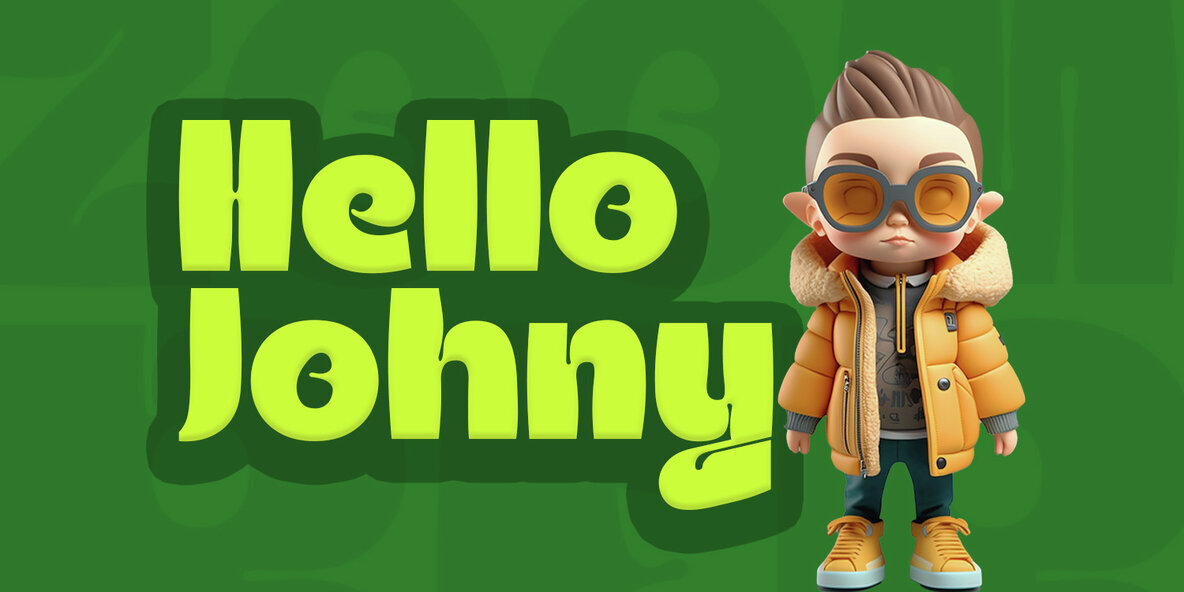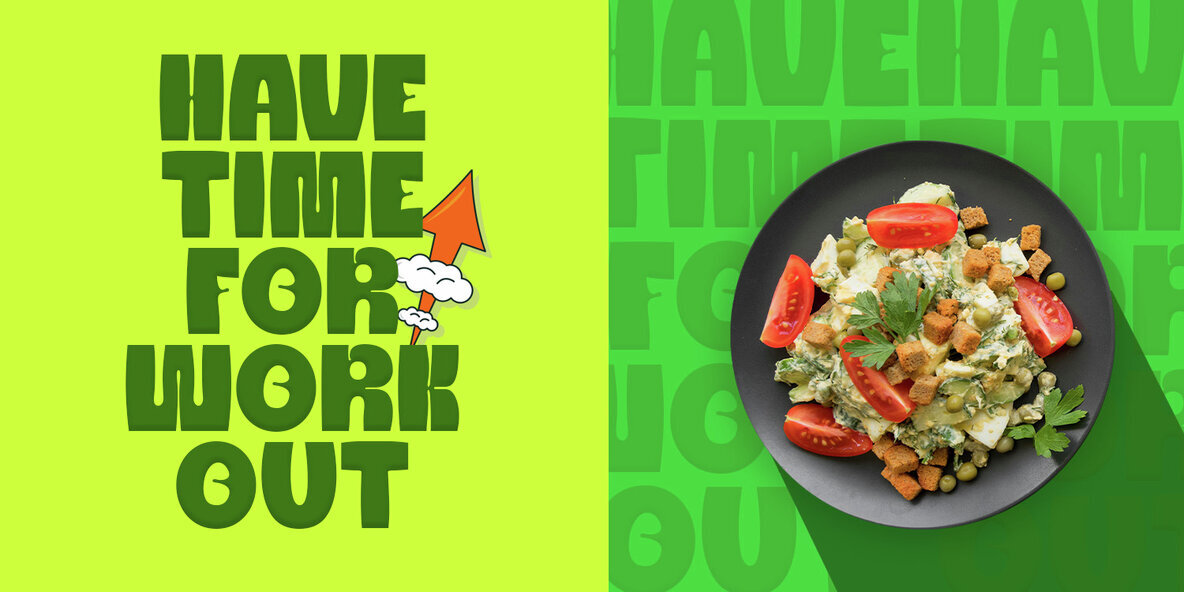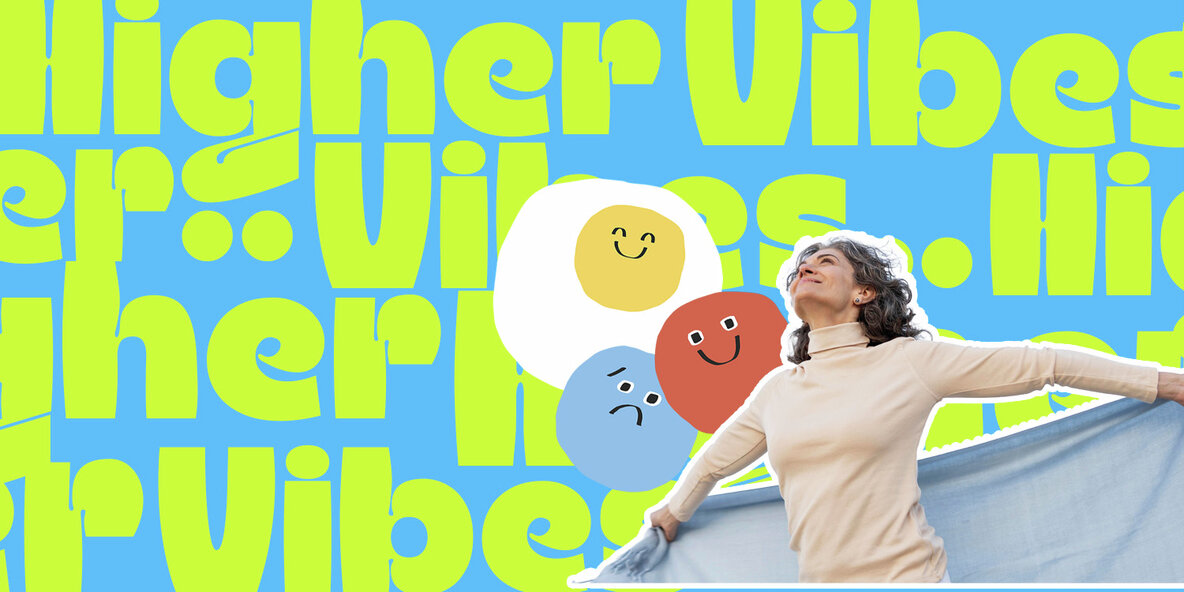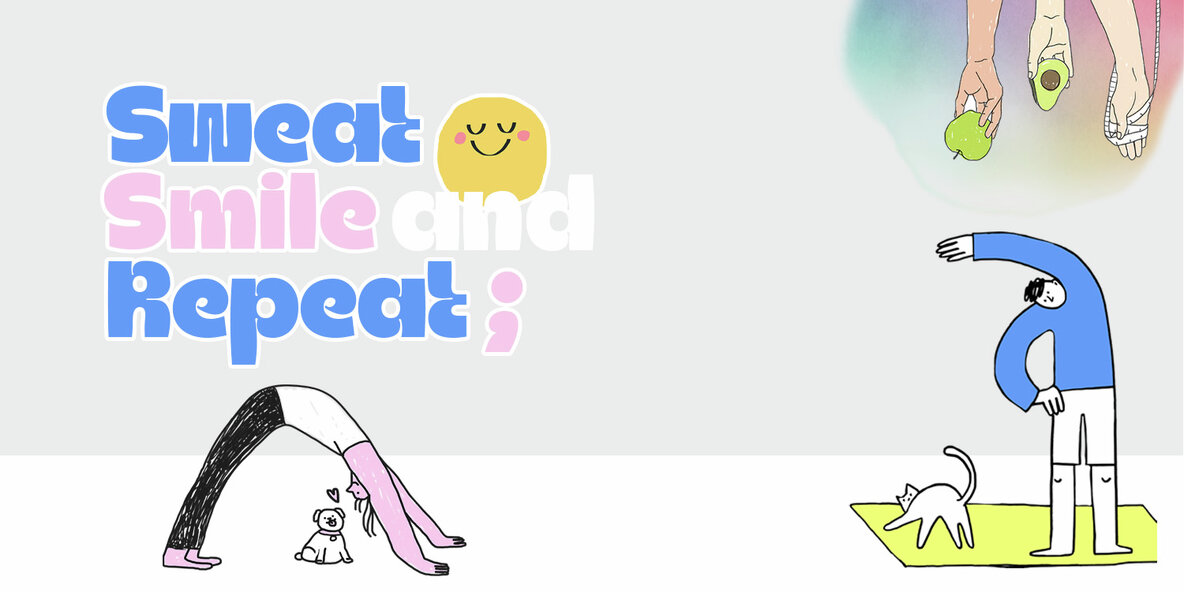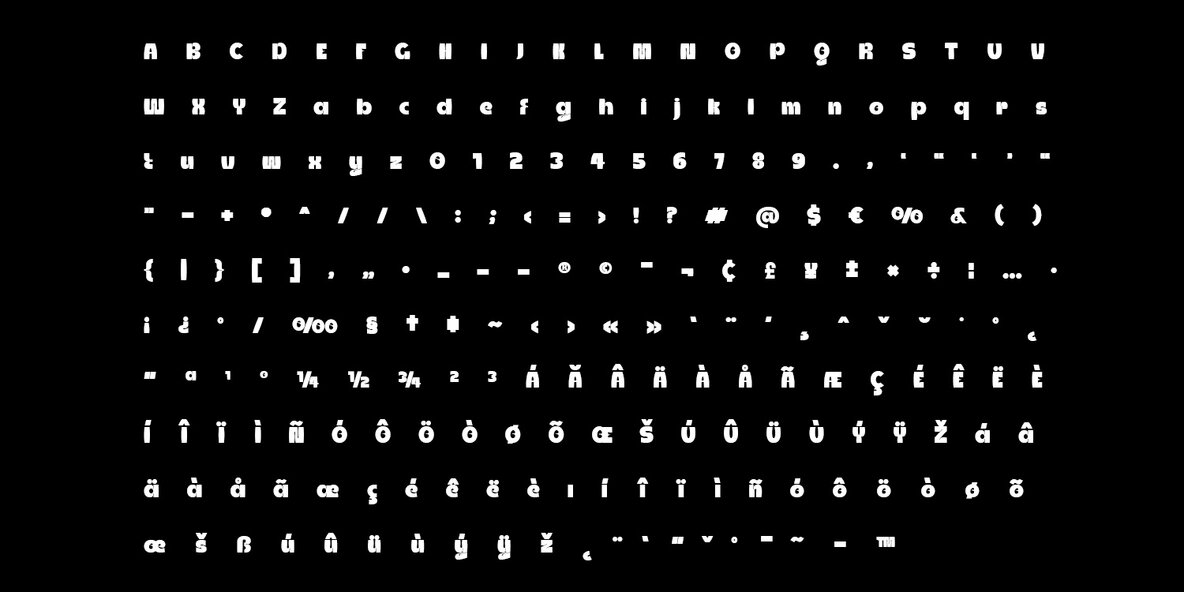
Zoomber Display: A New Generation Decorative Typeface
Zoomber Display by FoxType Co is a decorative typeface meticulously crafted to captivate and engage your audience. Its precise and mathematically designed details make it an ideal choice for enhancing your brand's visual impact. This versatile typeface is perfectly suited for various applications, including branding, logos, titles, headlines, servers, posters, screens, and digital ads.
Developed as a long-term project, Zoomber Display is designed to meet the diverse needs of corporate and creative projects alike.